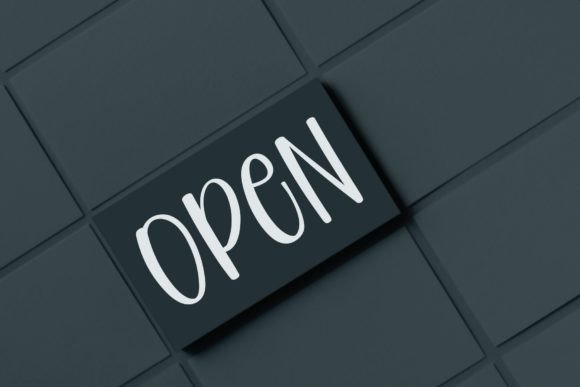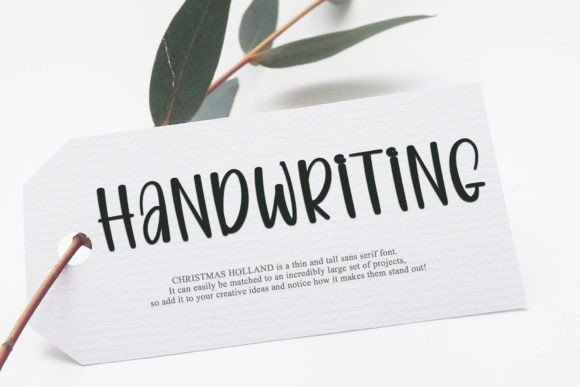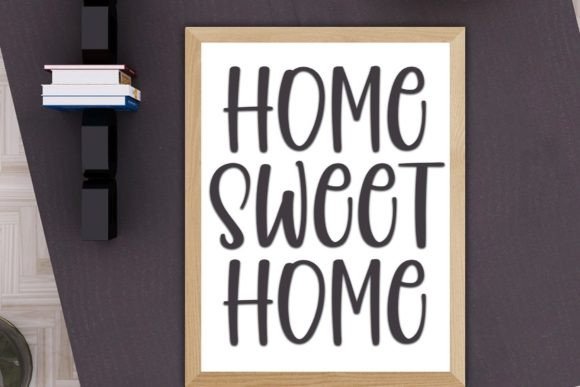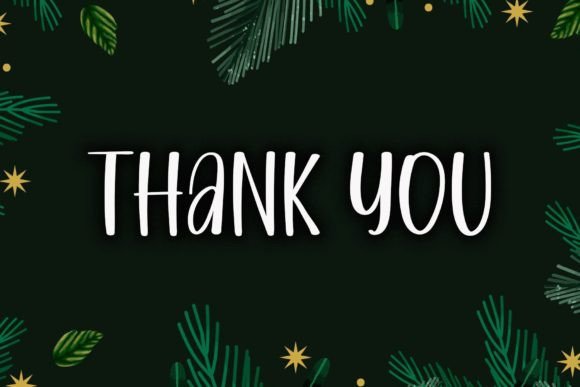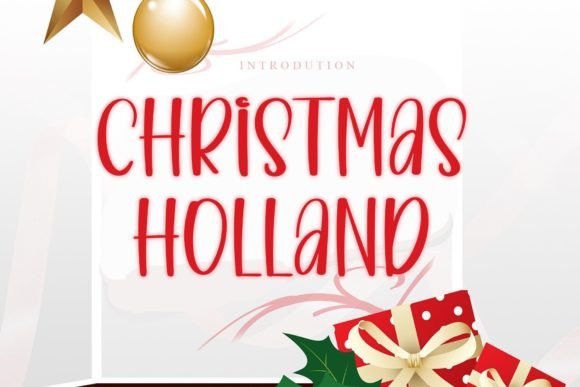
Introducing Christmas Holland Font: The Ultimate Handwritten Font for Your Designs
Are you tired of using the same old fonts for your designs? Look no further! Christmas Holland Font is a clean, relaxed, and friendly handwritten font that’s perfect for a wide range of projects. Its neat and simple style makes it an excellent addition to any designer’s toolkit. In this article, we’ll dive into the features and benefits of Christmas Holland Font and explore how it can become your go-to font for all occasions.
What is Christmas Holland Font?
Christmas Holland Font is a beautifully crafted handwritten font that’s designed to bring a touch of warmth and personality to your designs. Its clean and relaxed style makes it perfect for use in a variety of projects, from festive holiday cards and decorations to everyday designs like brochures, posters, and social media graphics.
Key Features of Christmas Holland Font
- Clean and Simple Style: Christmas Holland Font boasts a neat and simple style that’s easy on the eyes. Its clean lines and rounded edges make it perfect for designs that require a friendly and approachable feel.
- Handwritten with Love: This font is carefully crafted to mimic the look and feel of handwritten text. Its subtle imperfections and variations in letter size give it a warm and personal touch.
- Versatile: Christmas Holland Font is incredibly versatile and can be used in a wide range of designs, from formal to informal, and from digital to print.
- Easy to Read: The font’s clear and legible design makes it easy to read, even at small sizes.
Benefits of Using Christmas Holland Font
So, why should you choose Christmas Holland Font for your designs? Here are just a few benefits of using this amazing font:
- Adds a Personal Touch: Christmas Holland Font’s handwritten style adds a personal touch to your designs, making them more relatable and engaging.
- Perfect for Festive Designs: The font’s warm and friendly style makes it perfect for festive holiday designs, from Christmas cards to Halloween decorations.
- Great for Branding: Christmas Holland Font’s clean and simple style makes it an excellent choice for branding projects, such as logos, business cards, and letterheads.
How to Use Christmas Holland Font in Your Designs
Using Christmas Holland Font in your designs is easy! Here are a few tips to get you started:
- Pair it with Other Fonts: Christmas Holland Font pairs well with other fonts, such as sans-serif fonts like Arial or Helvetica. Experiment with different font combinations to create a unique look.
- Use it for Headings and Body Text: Christmas Holland Font is suitable for use in both headings and body text. Use it to create eye-catching headings or to add a personal touch to your body text.
- Experiment with Colors and Textures: Christmas Holland Font looks great in a range of colors and textures. Experiment with different colors and textures to add depth and interest to your designs.
Christmas Holland Font is a versatile and beautiful handwritten font that’s perfect for designers and crafters. Its clean and simple style makes it easy to use in a wide range of designs, from festive holiday cards to everyday designs like brochures and posters. With its warm and friendly style, Christmas Holland Font has the potential to become your go-to font for all occasions. So why not give it a try and see how it can elevate your designs?
Whether you’re a designer, crafter, or DIY enthusiast, Christmas Holland Font is a great addition to your toolkit. Its ease of use, versatility, and beautiful design make it a must-have font for anyone looking to add a personal touch to their designs.